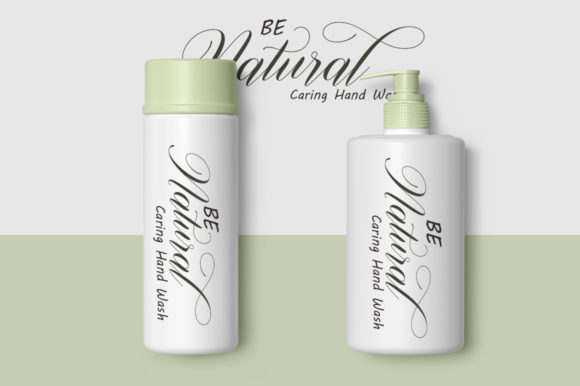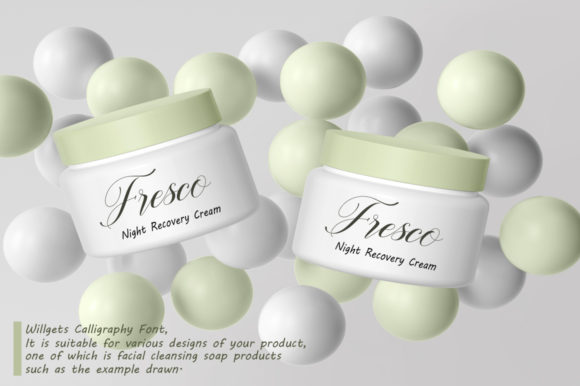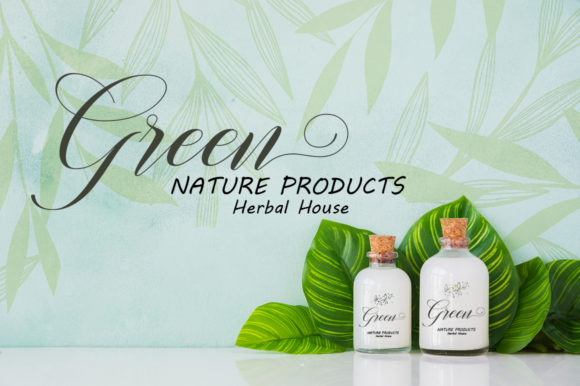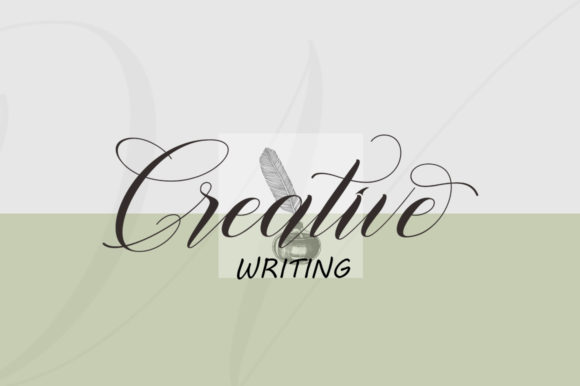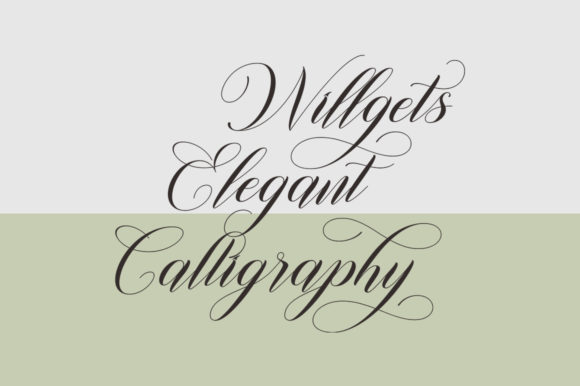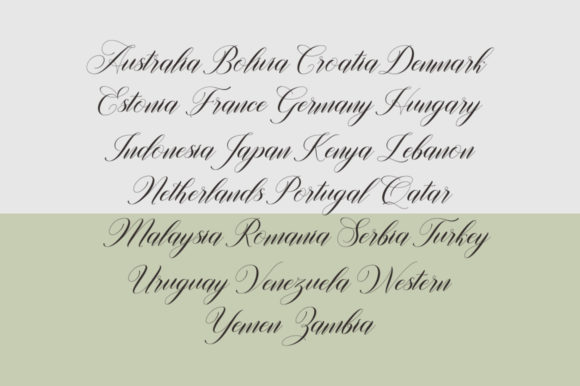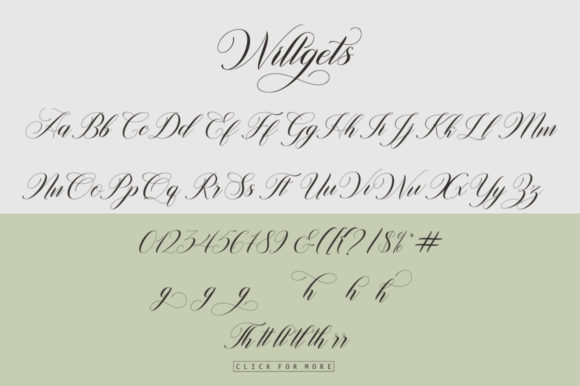
Willgets Font
About Willgets Font
Willgets is a gorgeous handwritten font, designed with the perfect mix of elegance and freshness. Its lovely, classic calligraphy makes it the right fit for a wedding invitation or any other project that requires a timeless feel added to it!